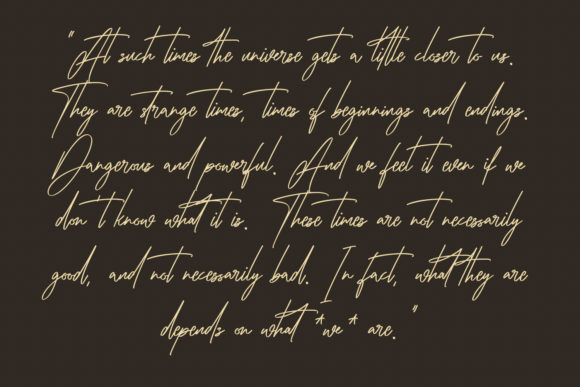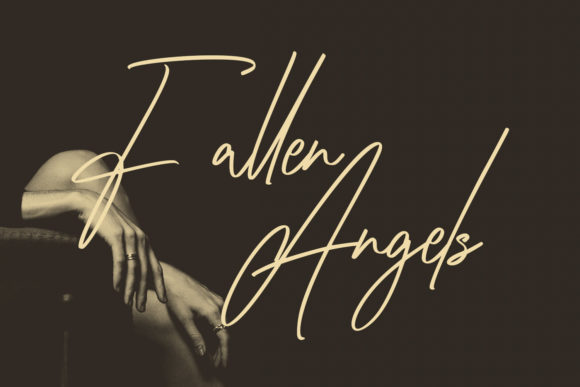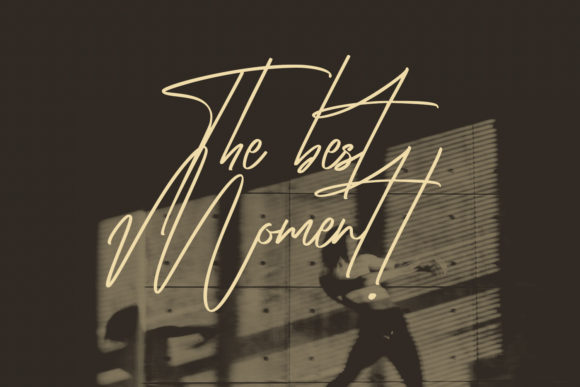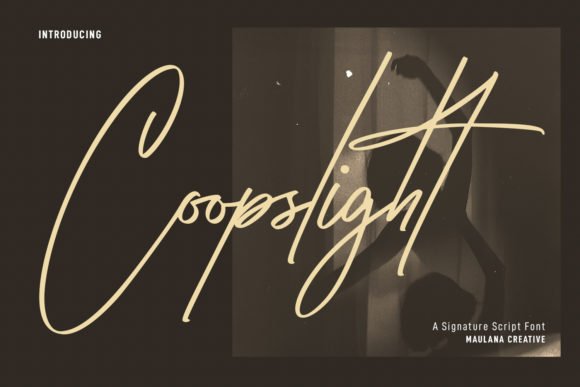
Introduction to Coopslight Font
Coopslight is a tall and expressive signature font.
It features medium strokes, fun characters, ligatures and alternates Add it confidently to your projects, and you will love the results.